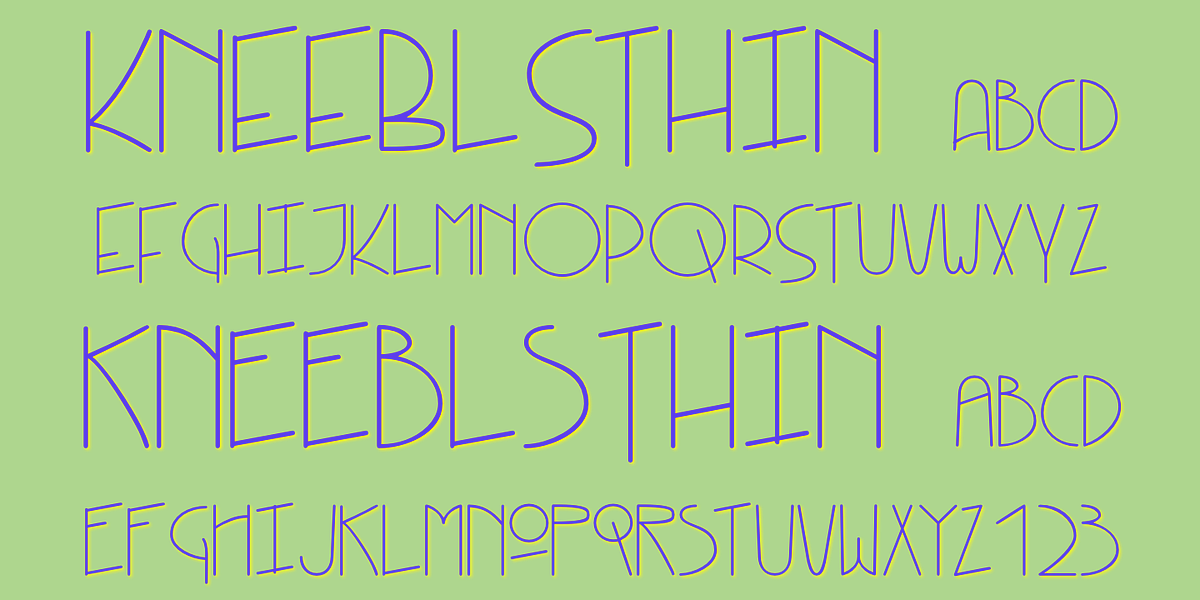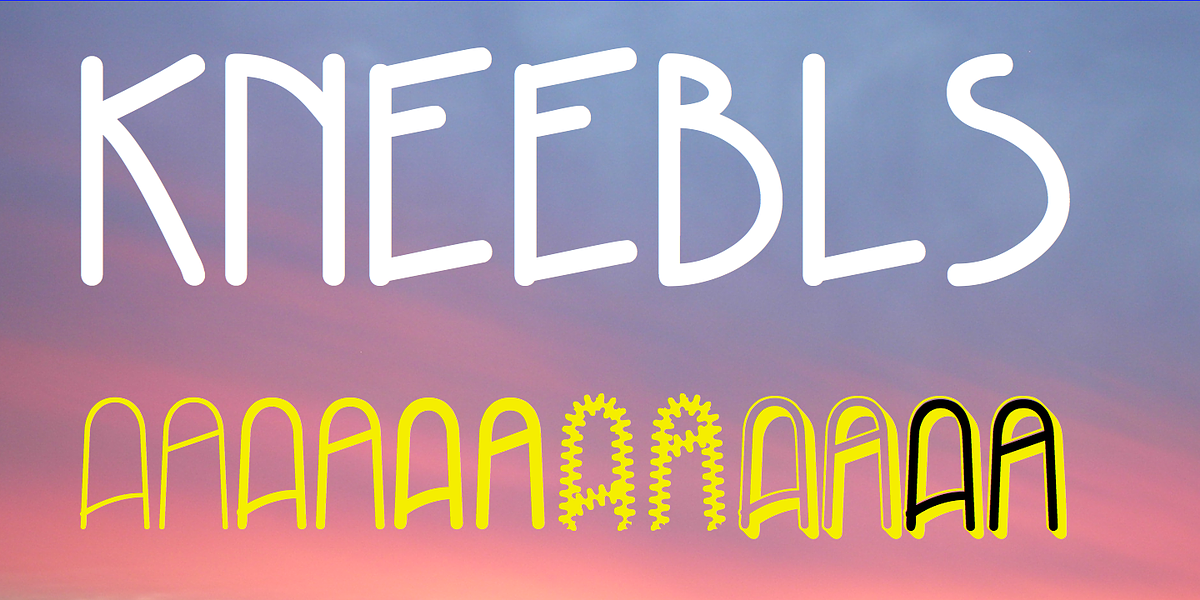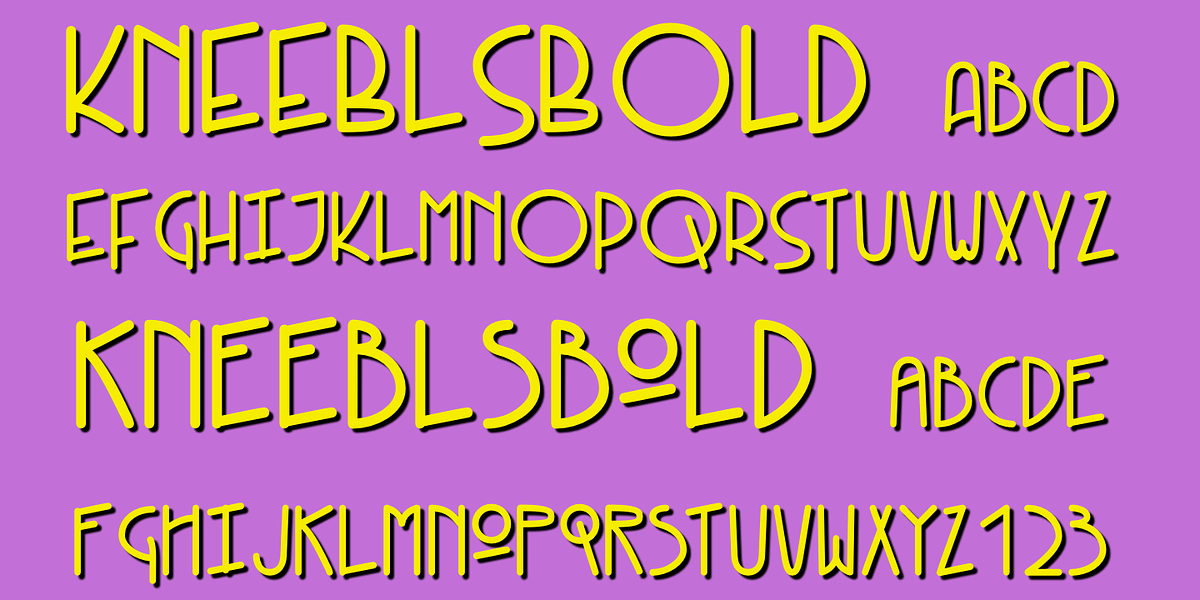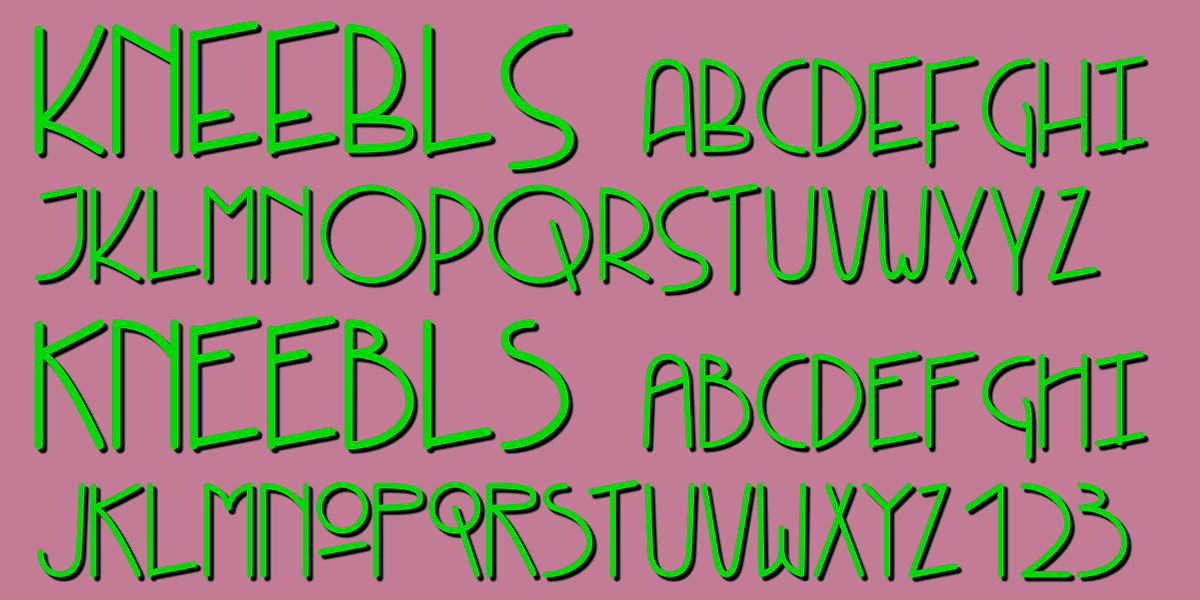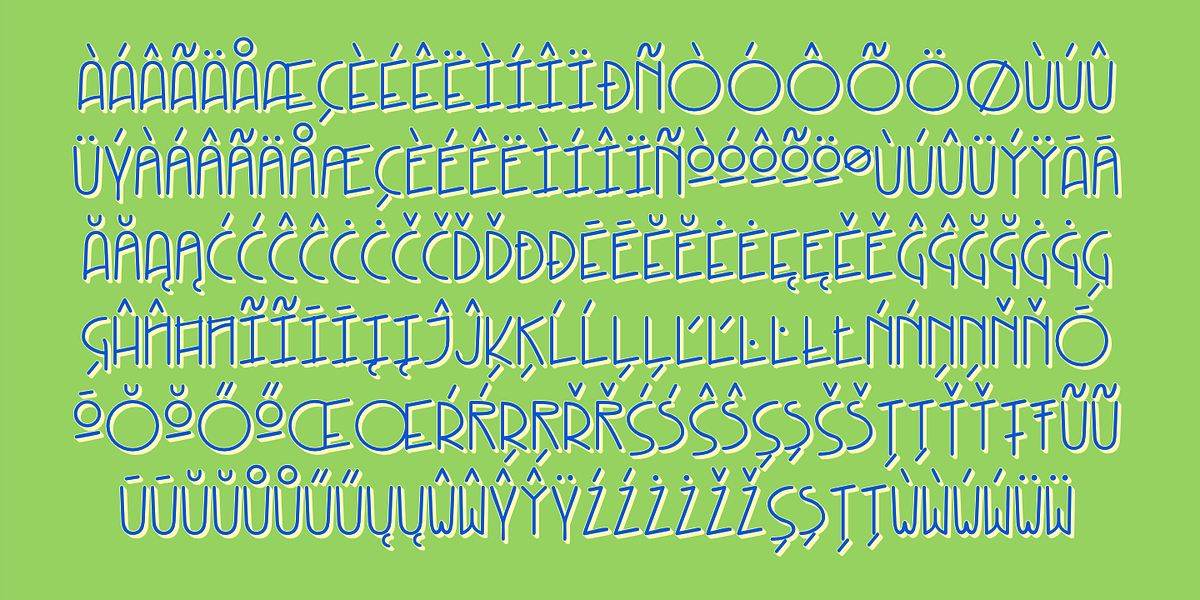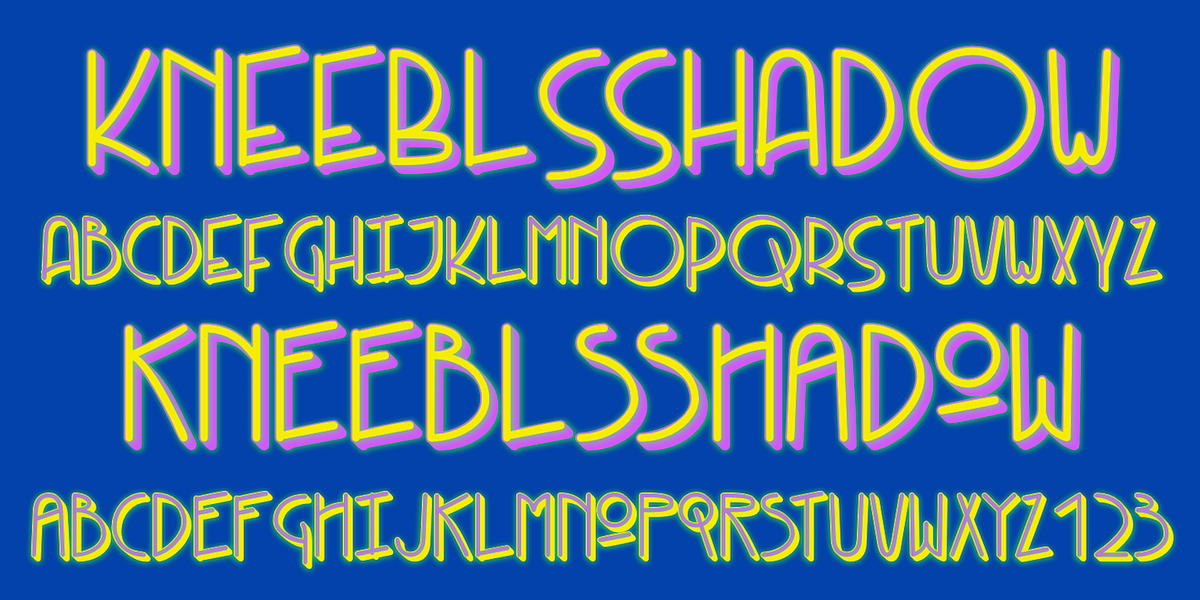
Kneebls
Kneebls is a decorative display font inspired by Art Deco lettering. Its distinctive feature is its all-caps design, where most lowercase letters differ from their uppercase counterparts. The font comes in three weights: thin, regular, and bold. Additionally, there are variations like KneeblsRuffled (a wavy version) and a shadowed version, designed to be layered with the standard shadowed style for added visual effect.